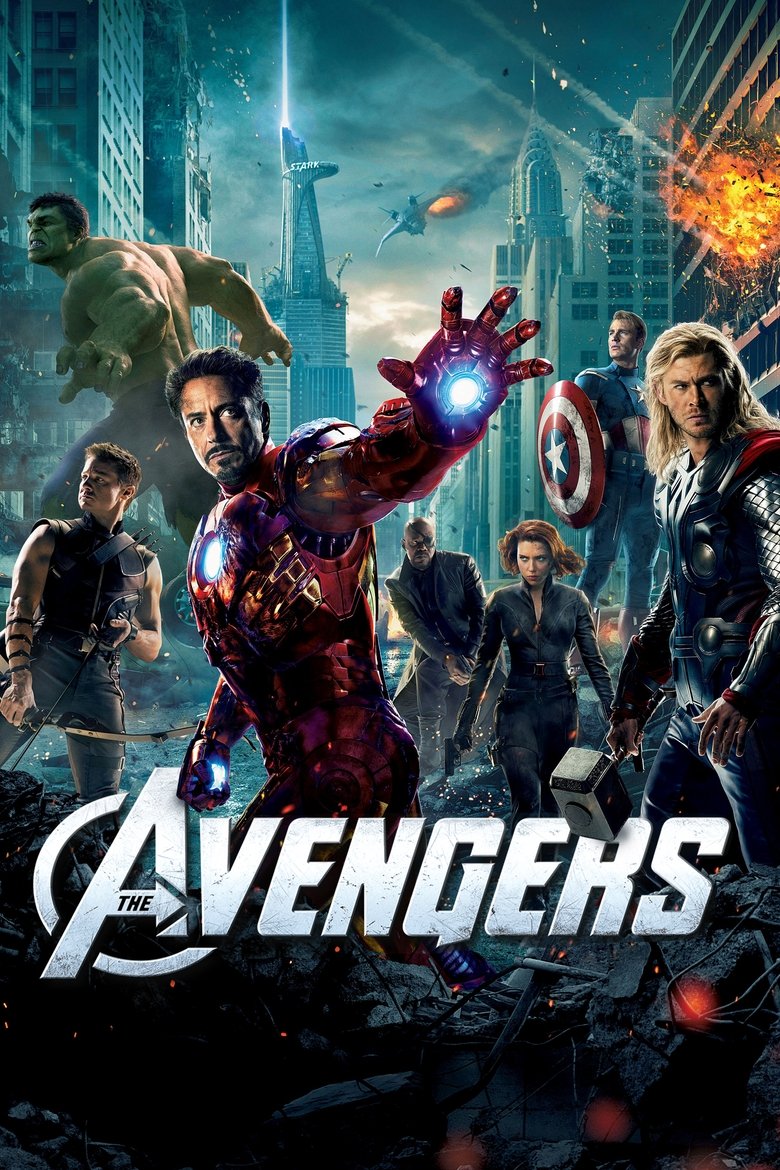
About the Avengers font
The Avengers wordmark is a heavy, all-caps display with militaristic weight. Anton — a condensed, high-impact free face — recreates that assemble-the-team power for text you can export freely.
What font is used in the Avengers logo?+
The original Avengers logo uses custom lettering. This generator recreates the look with Anton — a free, open-license font you can style and download.